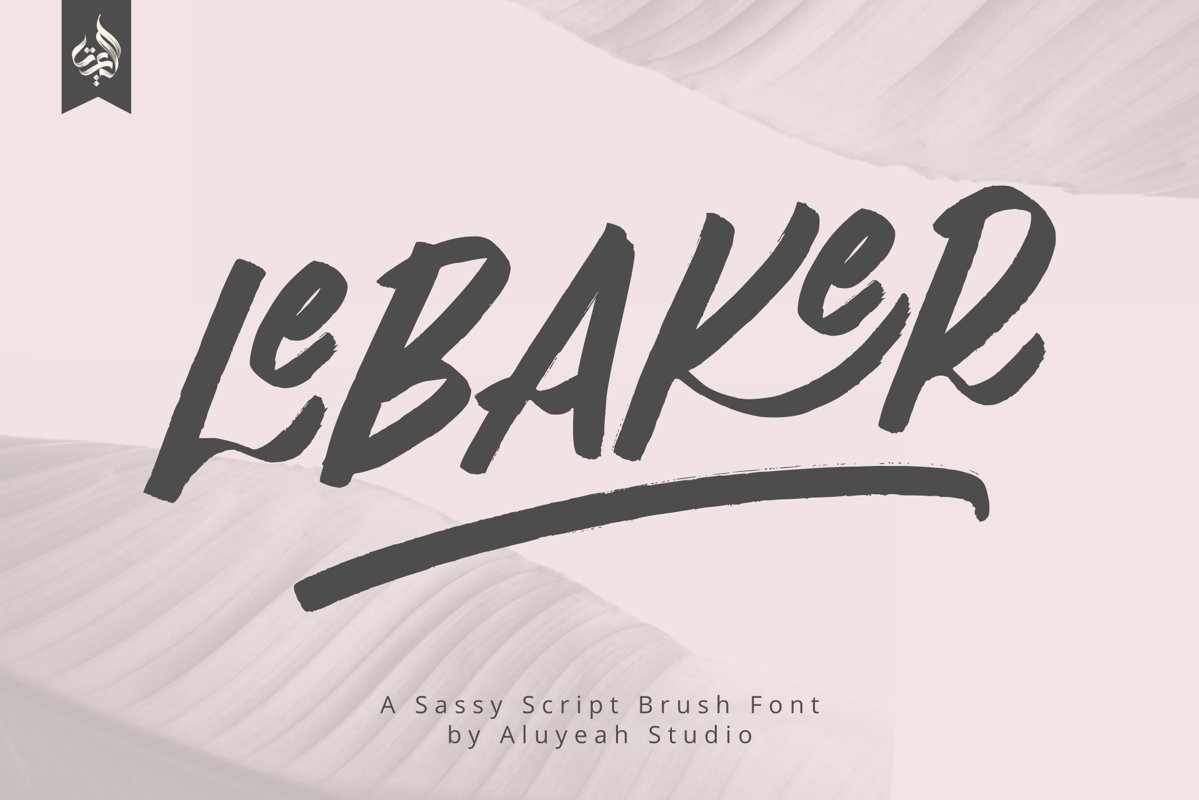
AL Lebaker - Homemade Script Font
LeBAKER a sassy script brush font! Allowing you to create sassy handwriting. With ligature that give it special touch. LeBAKER brush script is guaranteed to make your text stand out - perfect for printed quotes, poster, cards, product packaging, headers, branding and whatever your imagination holds.